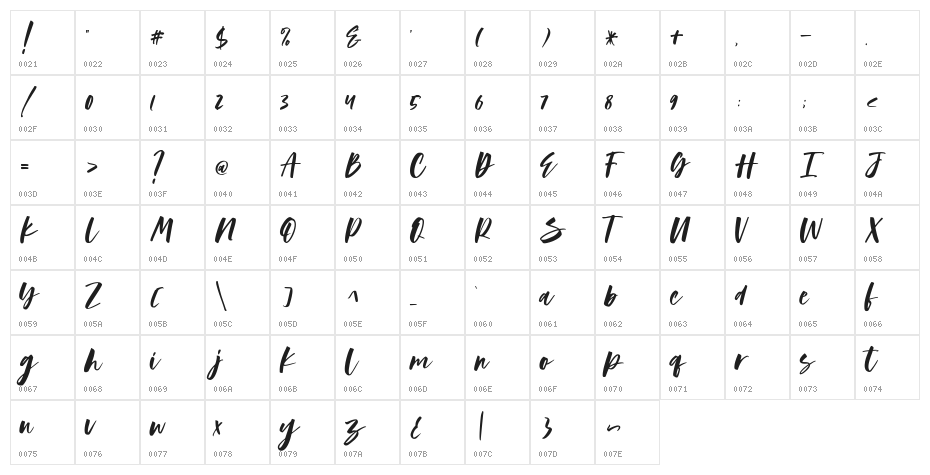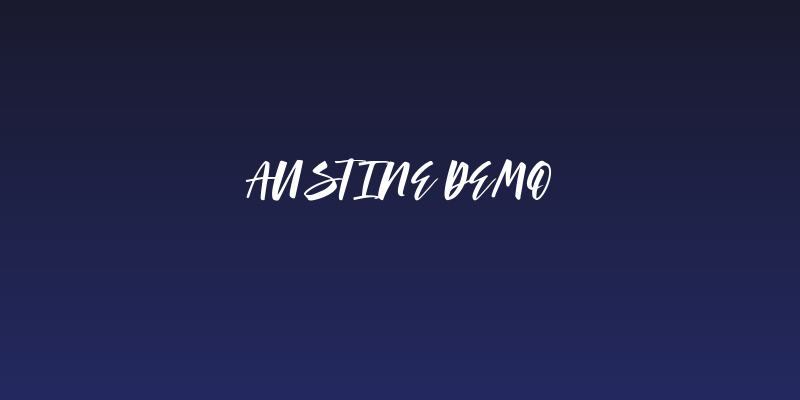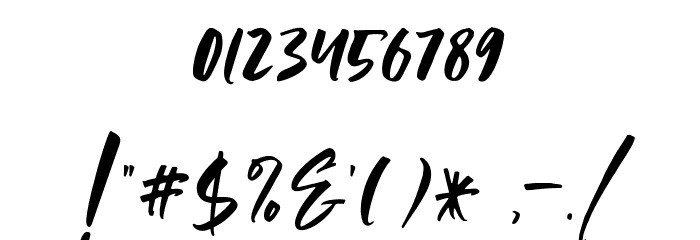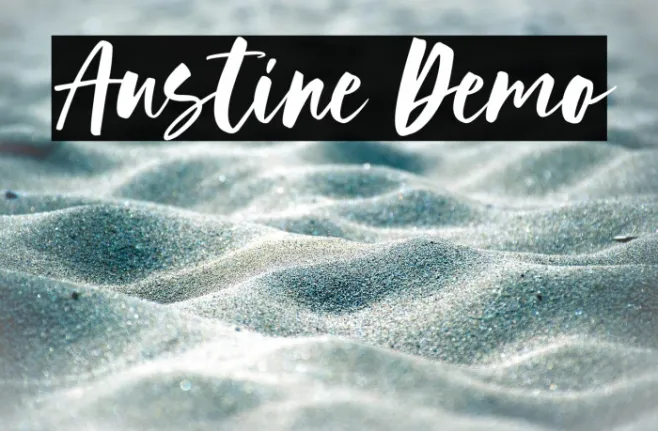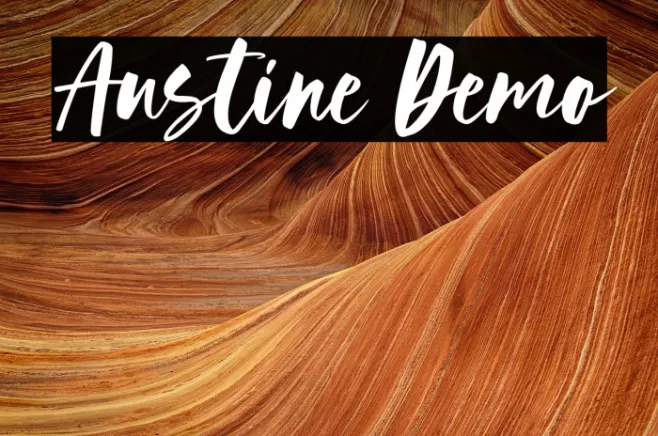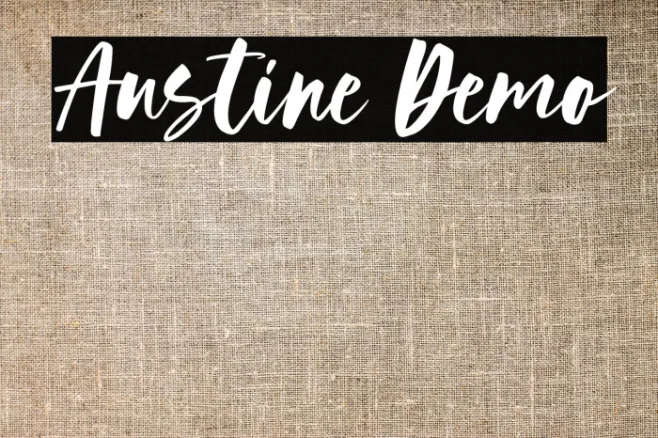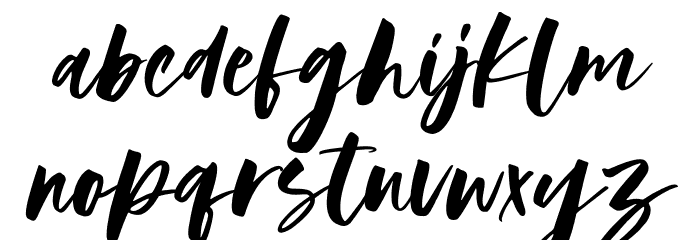
Austine Demo Font
Austine Demo Description
This font exudes a bold and dynamic handwritten style, characterized by its fluid and expressive strokes. The uppercase letters are tall and slightly slanted, giving a sense of movement and energy. The lowercase letters maintain a consistent flow, with some characters featuring unique loops and curves that add personality. The numbers are clear and bold, matching the overall aesthetic. Special characters are creatively designed, fitting seamlessly with the rest of the font. This font is perfect for projects that require a personal and artistic touch.